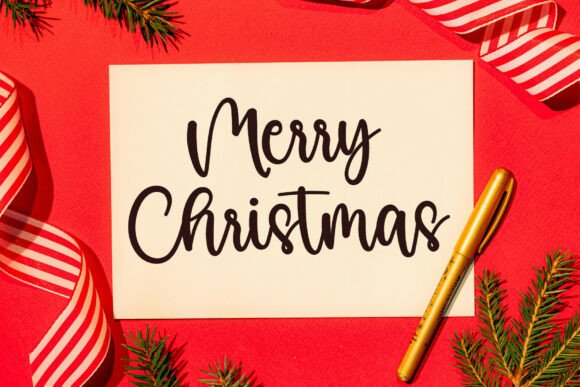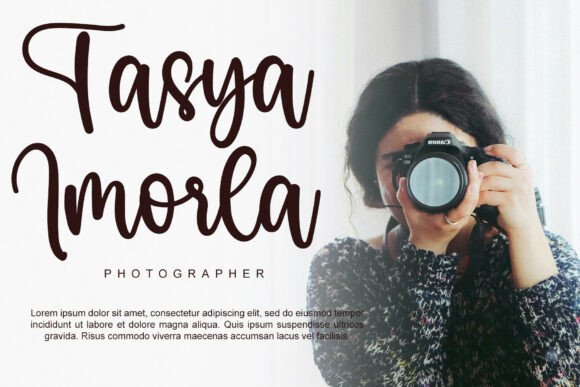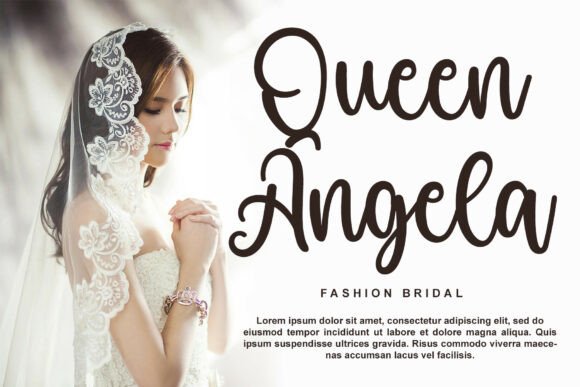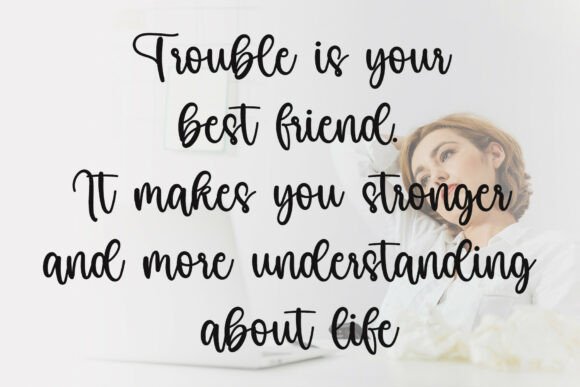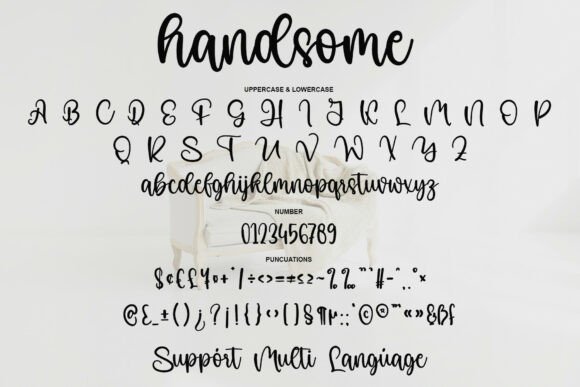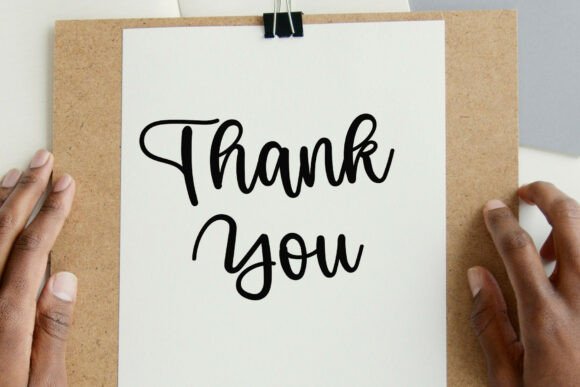
The Perfect Script: Unleashing the Beauty of Handsome Font
As a designer, there’s nothing quite like the thrill of bringing a project to life. It’s that moment when all the pieces come together, and you know you’ve created something truly special. For me, it’s often the typography that makes or breaks the design. And that’s where Handsome Font comes in – a beautiful script font that adds a touch of elegance and authenticity to any project.
With its exquisite letters and perfect calligraphy, Handsome Font is the perfect choice for designers looking to create a sense of cursive handwriting. Its PUA encoding means that you can access all of the glyphs and swashes with ease, giving you complete control over the design. Whether you’re working on a wedding invitation, a blog post, or a branding project, Handsome Font is a valuable asset in your design toolkit.
Handsome Font Key Features
- Size: The font family includes 6 weights (Thin, Light, Regular, Medium, Bold, and Black) and 2 styles (Regular and Italic), offering a range of options for designers and typographers.
- Unique Characteristics: This font features a classic, elegant design with a touch of sophistication, making it perfect for luxury brands, high-end products, and premium services.
- Language Support: Handsome Font supports a wide range of languages, including Latin, Greek, Cyrillic, and many others, making it a versatile choice for global projects.
- Scalability: Handsome Font is designed to scale well, ensuring that it looks great in both large and small sizes, from headlines to body text.
Handsomer Font Review
Handsomer Font is a beautiful script font that has the potential to elevate any design project. ✨ Its elegant and refined feel makes it perfect for projects that require a touch of sophistication and class.
One of the standout features of Handsomer Font is its versatility. ✨ It works well for both digital and print projects, making it a great addition to any designer’s toolkit. Additionally, the font is highly customizable, allowing designers to adjust the weight, spacing, and other parameters to achieve the desired look.
While Handsomer Font is an excellent addition to any designer’s toolkit, there are a few limitations to be aware of:
- ⚠️ Limited character set: Handsomer Font only includes a limited number of characters, which may make it difficult to use for projects that require a wide range of special characters or languages.
- ⚠️ Not suitable for body text: While Handsomer Font is perfect for headlines and titles, it’s not the best choice for body text due to its elaborate and ornate feel.
In conclusion, Handsomer Font is a beautiful and versatile script font that is perfect for projects that require a touch of sophistication and class. While it has some limitations, it’s still a valuable addition to any designer’s toolkit. I would highly recommend Handsomer Font for any project that requires a elegant and refined feel.
Handsome Font Practical Application Guide
Tips for Getting the Most Out of Handsome Font
Use Handsome Font for headings and titles to add a touch of elegance and sophistication to your designs.
Combine Handsome Font with other fonts to create a unique and visually appealing typography.
Experiment with different font sizes and styles to find the perfect balance for your design.
Formal event invitations and announcements
High-end branding and marketing materials
Playfair Display is an elegant and luxurious serif font, ideal for creating a sophisticated and high-end look. It’s perfect for use in magazine headlines, book titles, and wedding invitations. Compared to Handsome Font, Playfair Display has a more refined and delicate appearance, with intricate details and flourishes.
Didot is a classic and sophisticated serif font, often used in luxury branding and high-end designs. It’s suitable for use in logos, magazine titles, and advertising campaigns. Compared to Handsome Font, Didot has a more refined and elegant appearance, with a focus on legibility and sophistication.